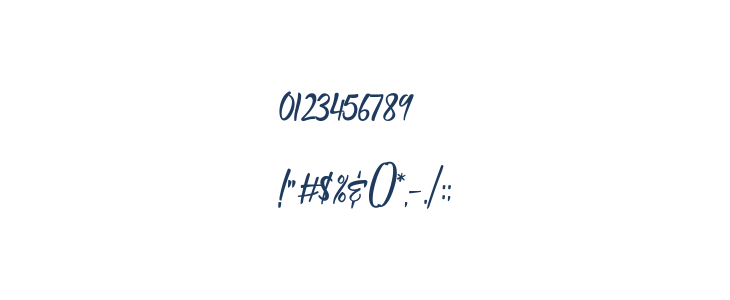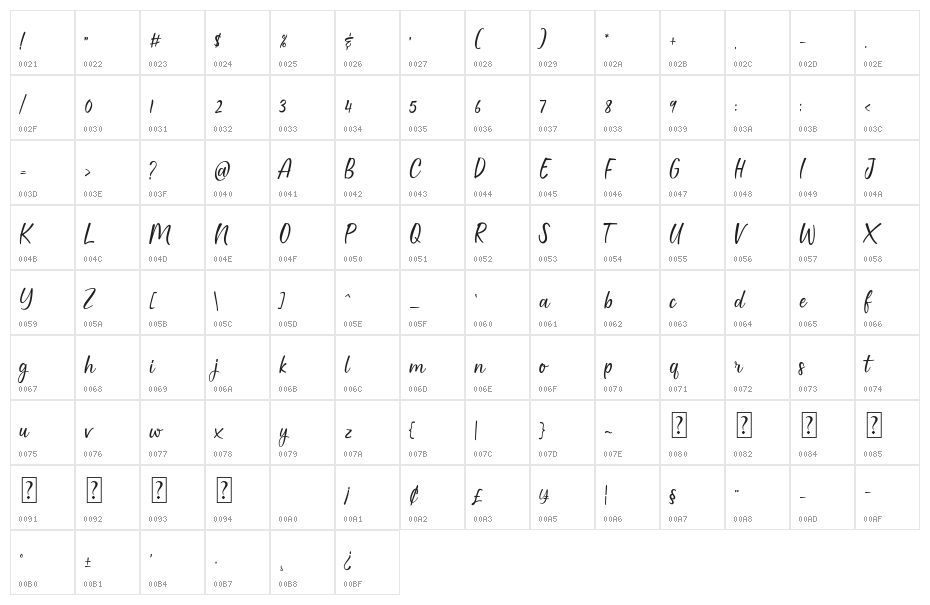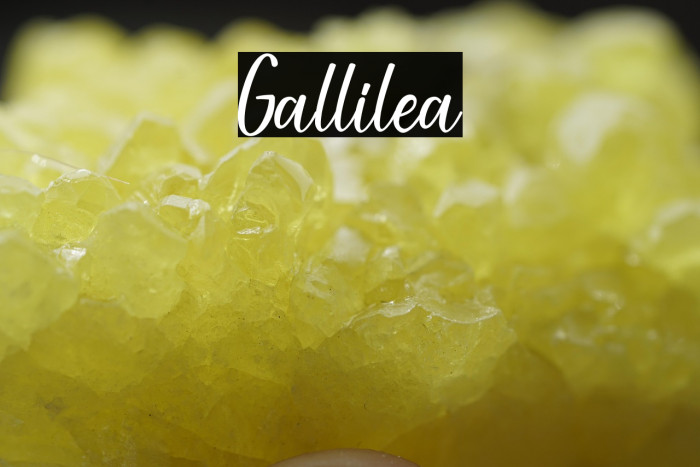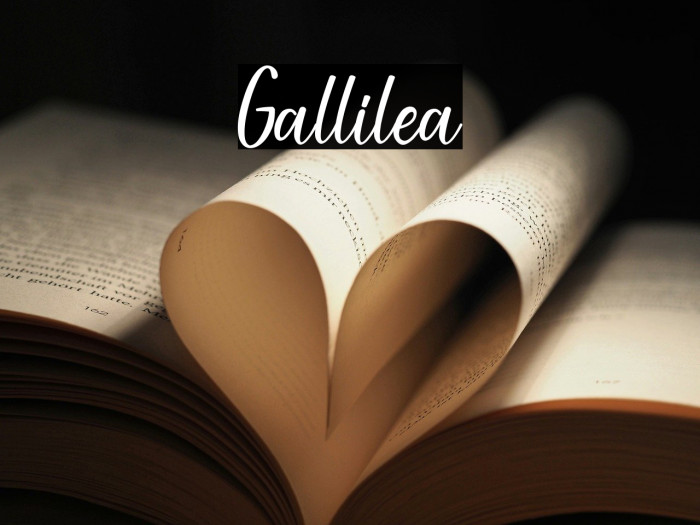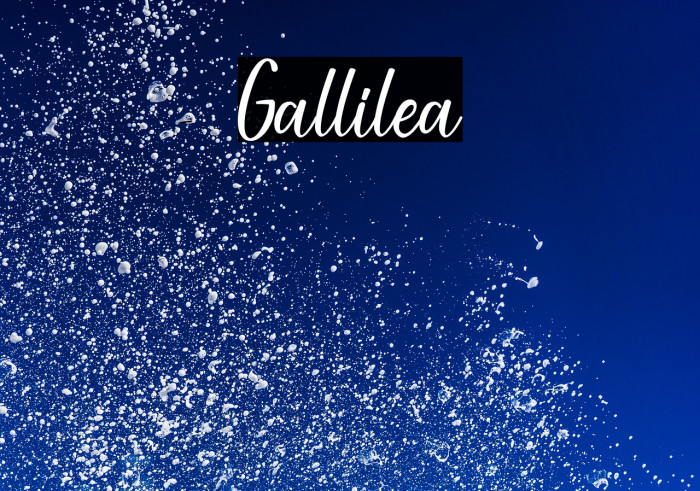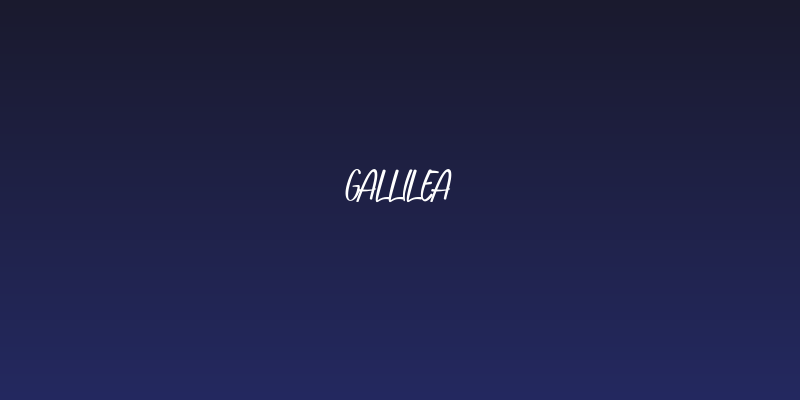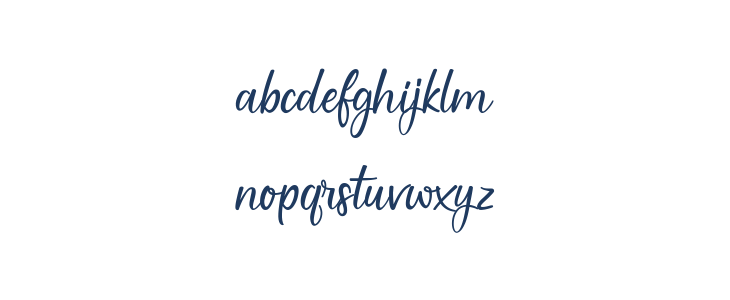
Gallilea Font
Gallilea Description
This font exudes a lively and dynamic character with its flowing, cursive style. The letters are elegantly connected, giving a sense of fluidity and movement. The uppercase letters are bold and slightly slanted, adding a touch of sophistication. The lowercase letters maintain a consistent flow, with smooth curves and rounded edges. The numerals are clear and legible, matching the overall style of the font. Special characters are designed with the same attention to detail, ensuring they blend seamlessly with the rest of the typeface. This font is perfect for projects that require a personal and artistic touch, such as invitations, branding, and creative designs.
| Use Case | Logos, Invitations, Artistic designs |
| Proposed Projects | Ideal for wedding invitations, greeting cards, branding, and artistic projects. |